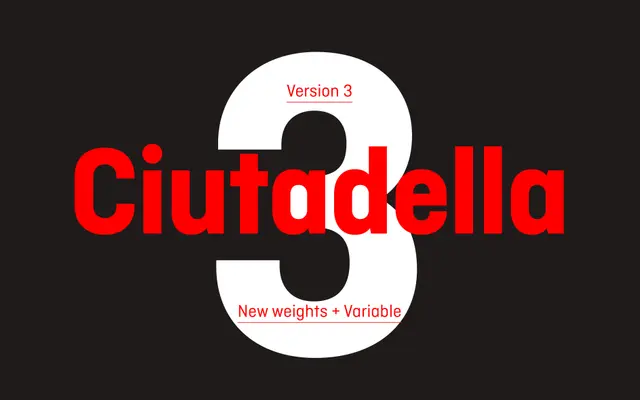
Ciutadella
A geometric sans originally commissioned by Mario Eskenazi's studio, built across seven weights with italics and variable font support for both identity and publication work.
Originally commissioned by Mario Eskenazi's studio, this geometric sans prioritises simplicity and directness across a 16-style family spanning ExtraLight to ExtraBold with matching italics. Variable Roman and Variable Italic fonts extend the range for flexible typesetting. Though conceived primarily as a display face, an alternate two-story 'a' and open forms give it enough legibility for intermediate body text.
Described explicitly as a geometric sans serif with clean, simple forms and an open personality. Alternate two-story 'a' and consistent geometric construction place it firmly in the geometric sans subcategory.